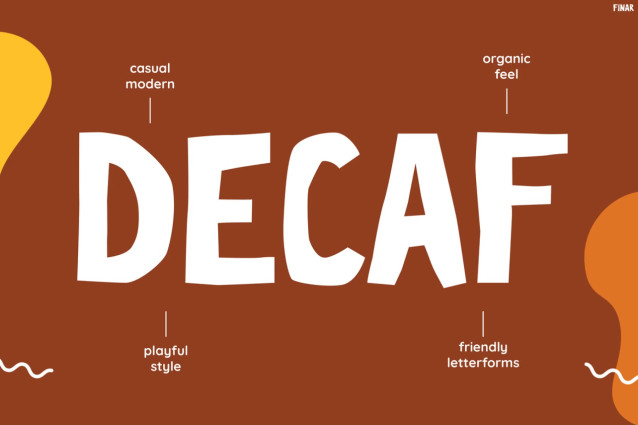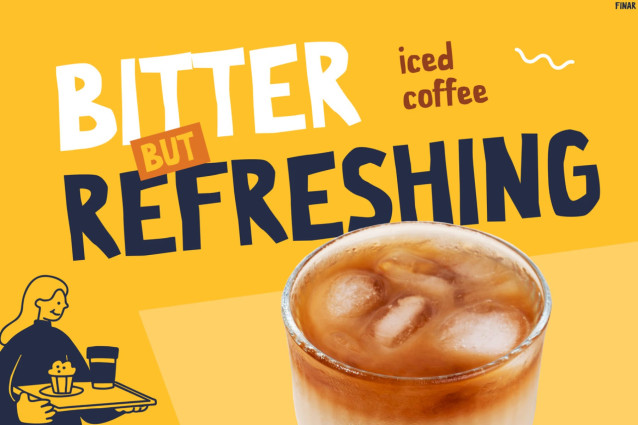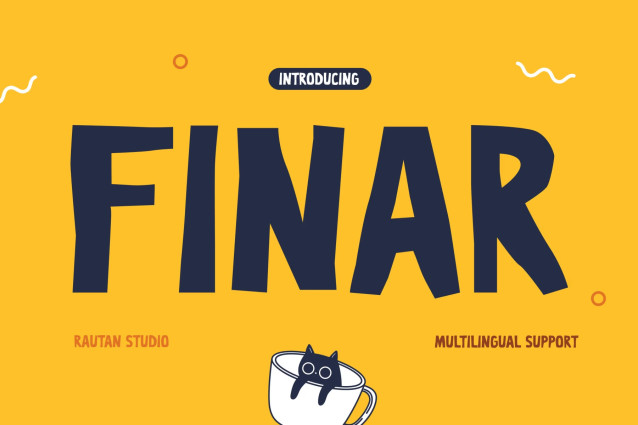
Finar Font
Finar Font is a bold and playful display font designed to make every design instantly stand out. With its chunky letterforms, hand-drawn style, and retro café-inspired aesthetic, this font creates a fun and energetic visual atmosphere from the very first glance. Moreover, the imperfect character shapes give every layout a more authentic and trendy personality.
In addition, the thick typography keeps your text highly readable, so your headlines stay bold and eye-catching across both digital and print media. Because of its modern social-media vibe, Instagram Font Finar works perfectly for branding, café promotions, packaging, and stylish online content. Furthermore, the playful structure helps your typography feel more dynamic, youthful, and visually memorable. At the same time, the quirky handmade appearance gives your projects a more fresh and creative mood. Even better, this font includes Multilingual Support for 67 Languages, so you can easily create global-ready content without limitations.